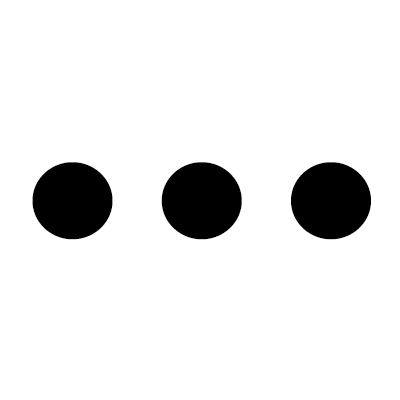
An ellipsis is a character consisting of usually 3 dots. It usually indicates an intentional omission of a word, sentence, or whole section from a text. Depending on the script, the dots can be arranged in different directions.
Dutch: beletselteken
French: points de suspension
German: Ellipse (Auslassungszeichen)
Italian: puntini di sospensione
Polish: wielokropek
Portuguese: Reticências
Russian: многоточие
Spanish: puntos suspensivos